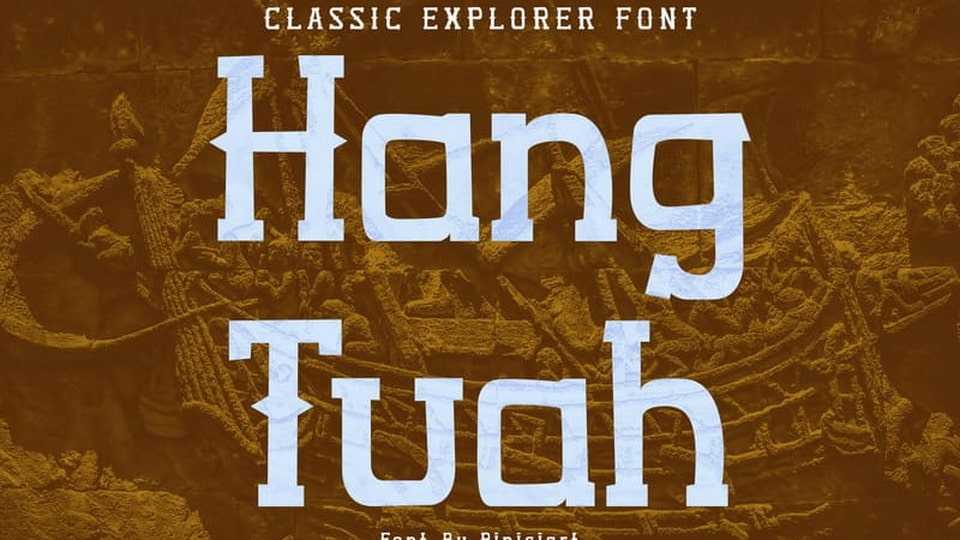
Download Hang Tuah font, a classic explorer typeface. Classic look with spurs that emphasize the old adventure vibes. Hang Tuah will be a go-to for exploration and old-world adventure projects.